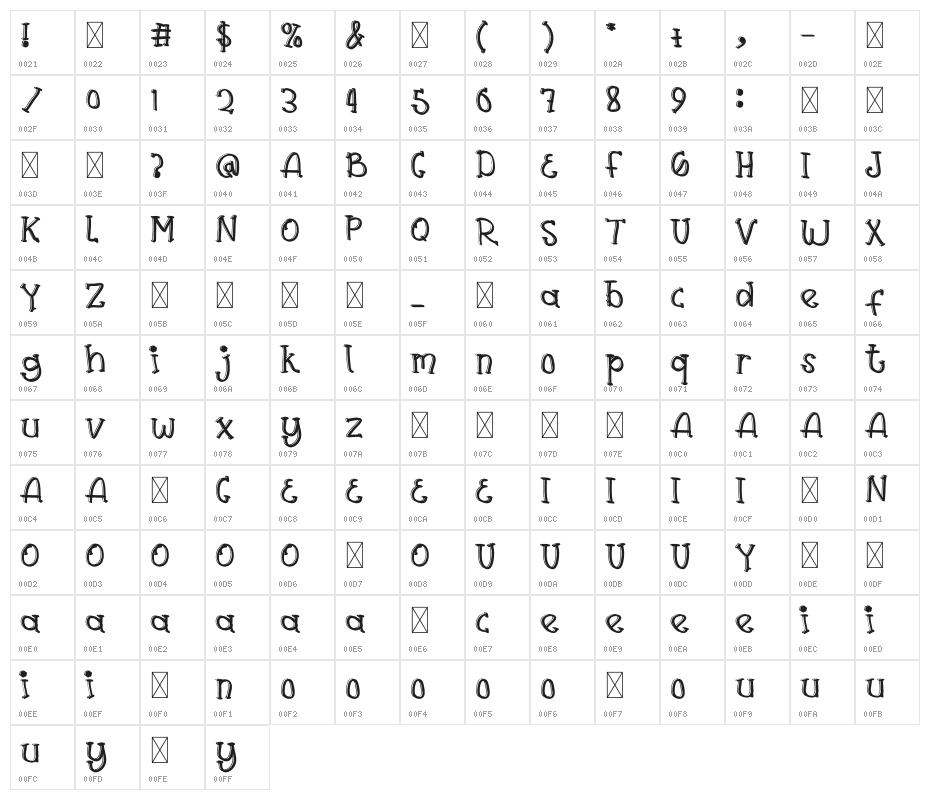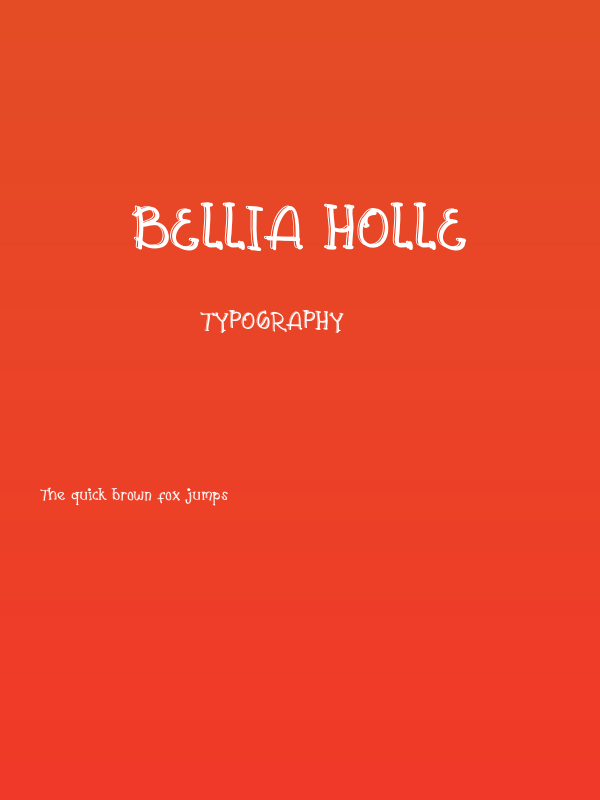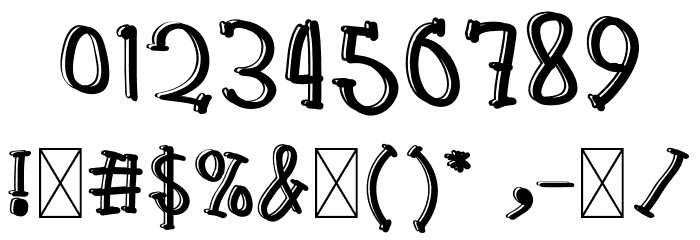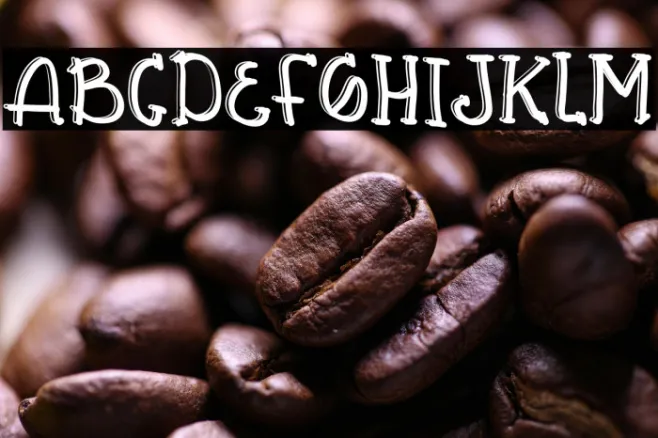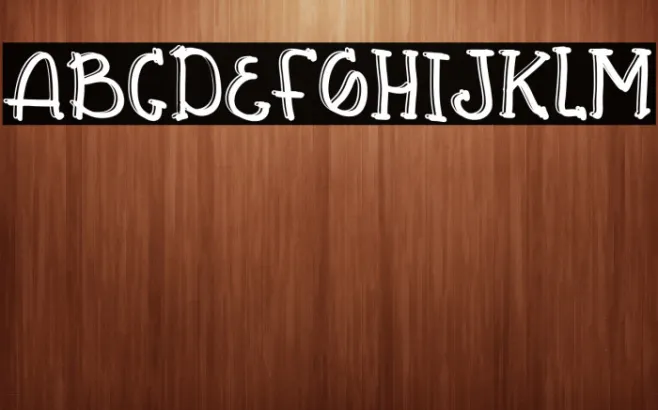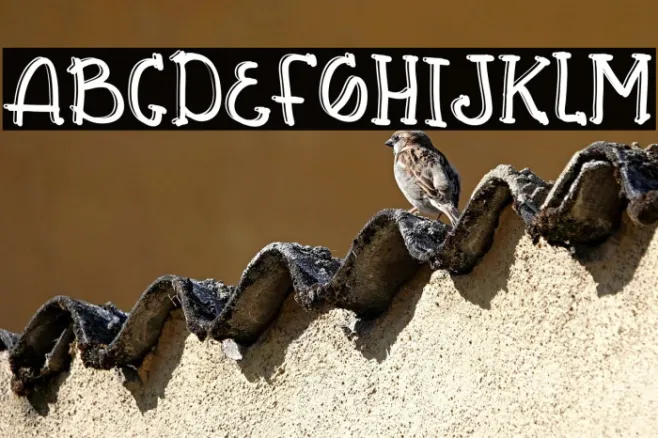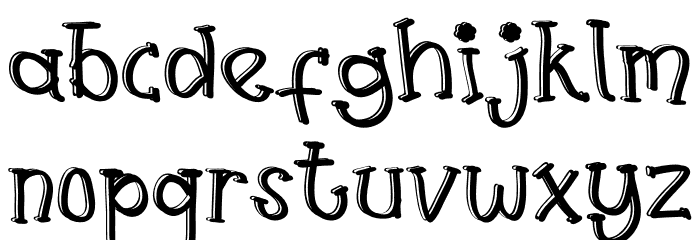
Bellia Holle Font
Bellia Holle Description
This font features a playful and whimsical design with a hand-drawn aesthetic. The characters have a unique, slightly irregular shape, giving them a lively and dynamic appearance. The strokes are bold and consistent, with rounded edges that add to the friendly and approachable feel. The uppercase and lowercase letters maintain a cohesive style, while the numbers and special characters complement the overall look. This font is ideal for projects that require a fun and informal touch, such as children's books, greeting cards, or playful branding.
BELLIA-HOLLE UPPERCASE
BELLIA-HOLLE LOWERCASE
BELLIA-HOLLE OTHER CHARS
| Proposed Projects | Children's books, greeting cards, playful branding, casual invitations, and creative posters. |